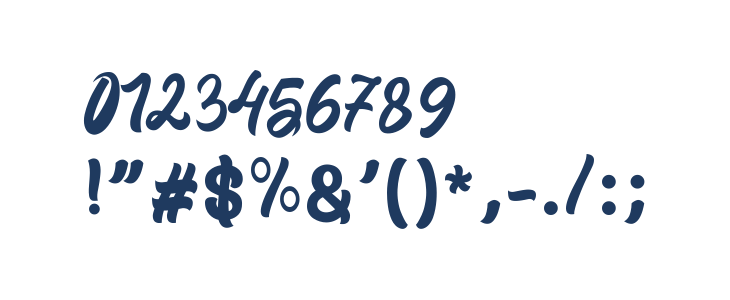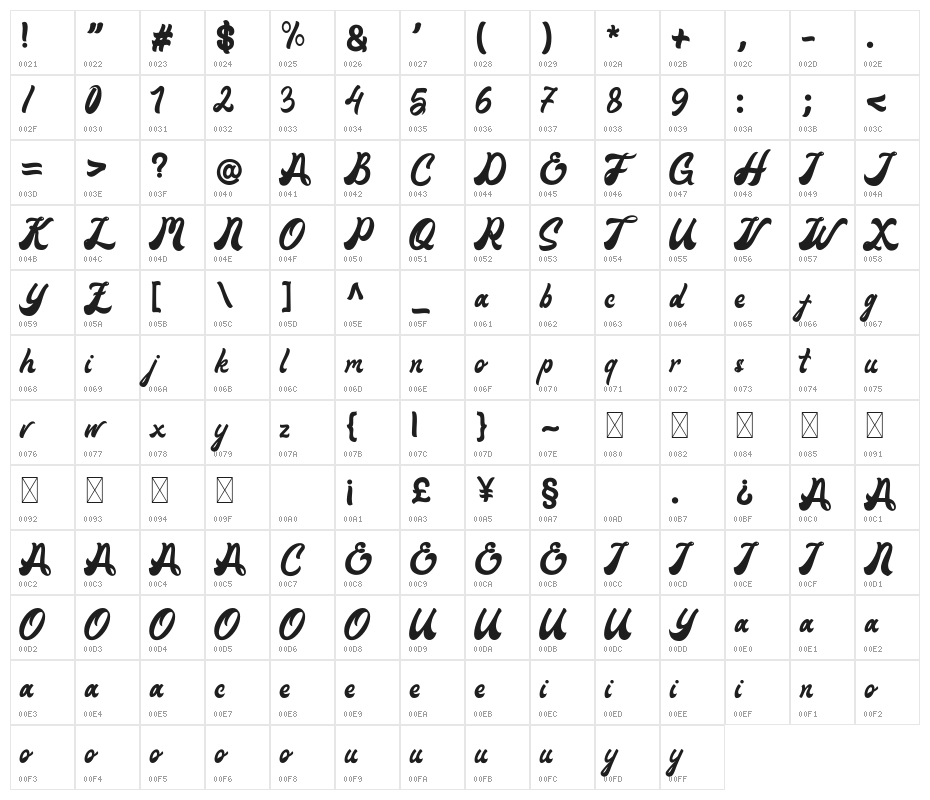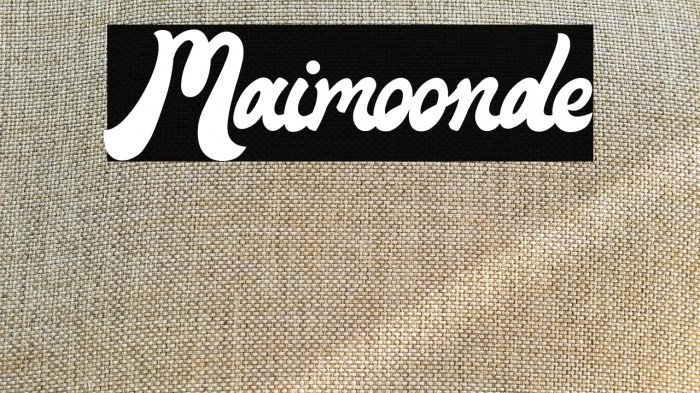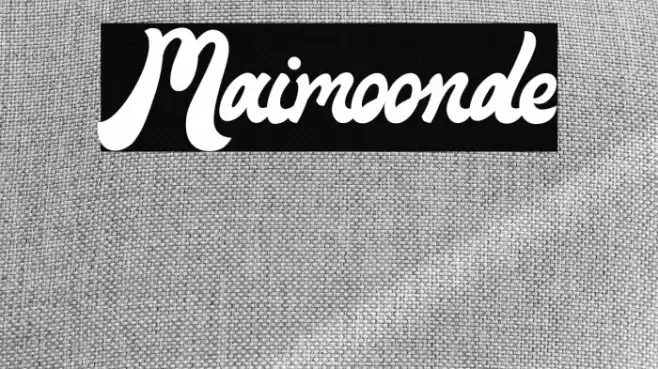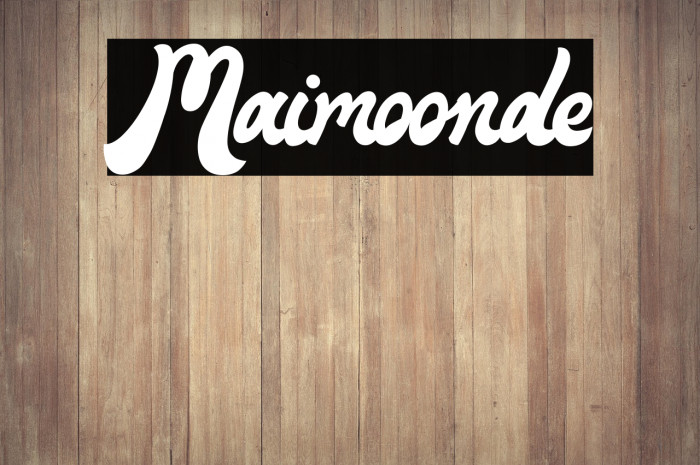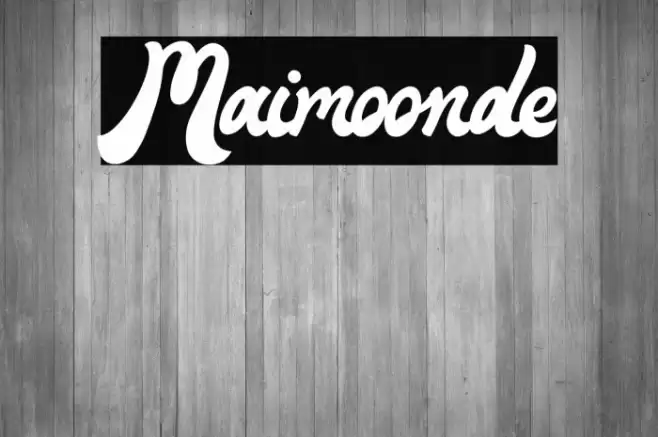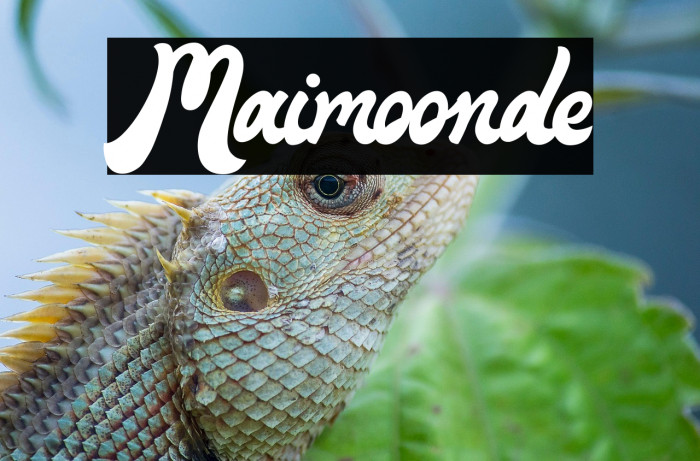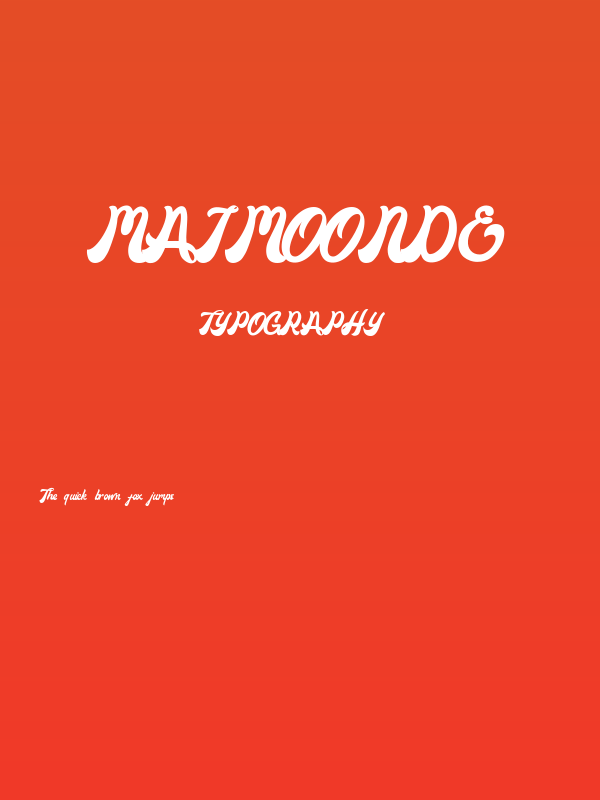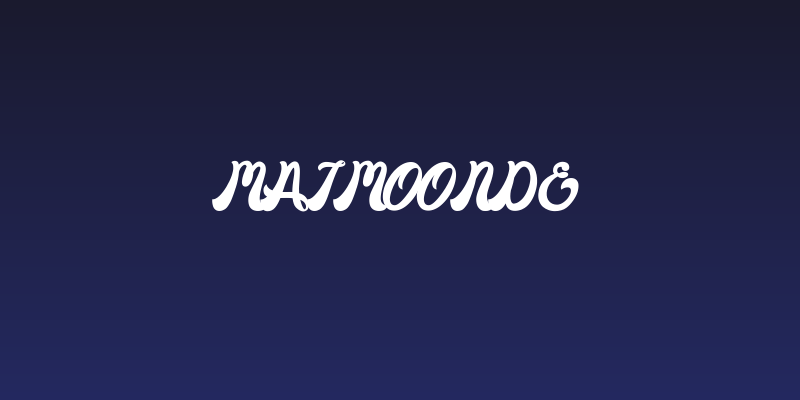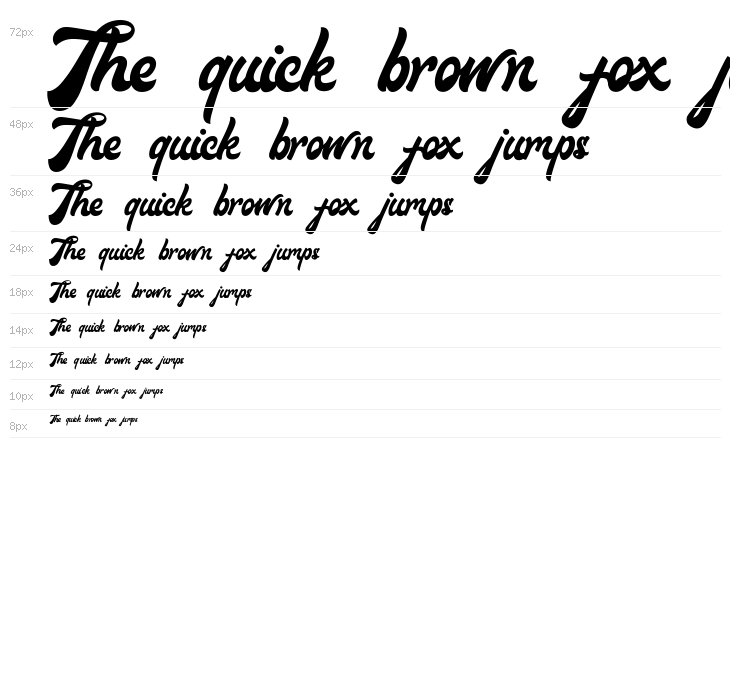
Maimoonde Font
Maimoonde Description
This font features a bold and flowing script style, characterized by its smooth, cursive strokes and elegant curves. The uppercase letters are ornate and slightly larger than the lowercase, which are more compact and maintain a consistent flow. The numerals and special characters are designed to match the overall script aesthetic, with rounded edges and a playful yet sophisticated appearance. The font exudes a sense of elegance and creativity, making it suitable for artistic and decorative purposes.
| Use Case | Logos, Invitations, Decorative Text |
| Proposed Projects | Ideal for wedding invitations, greeting cards, branding projects, and decorative signage. |